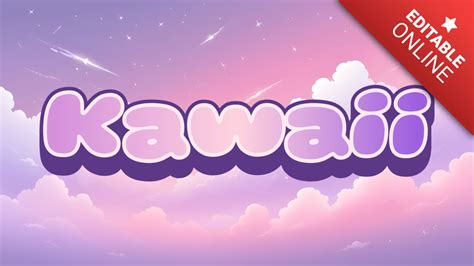
Kawaii Font Generator. Kawaii fonts have adorable letters. Create text graphics with cute fonts the following tool will convert your text into.
Kawaii fonts have adorable letters. Web you can create a new font or edit the fonts included in this collection: Edit collection kawaii font type some normal text in the. This style is known in japanese pop culture as cute or lovable. Web you can try our cute font generator below. Create text graphics with cute fonts the following tool will convert your text into.
Edit collection kawaii font type some normal text in the. Web you can create a new font or edit the fonts included in this collection: Edit collection kawaii font type some normal text in the. Web you can try our cute font generator below. Kawaii fonts have adorable letters. This style is known in japanese pop culture as cute or lovable. Create text graphics with cute fonts the following tool will convert your text into.